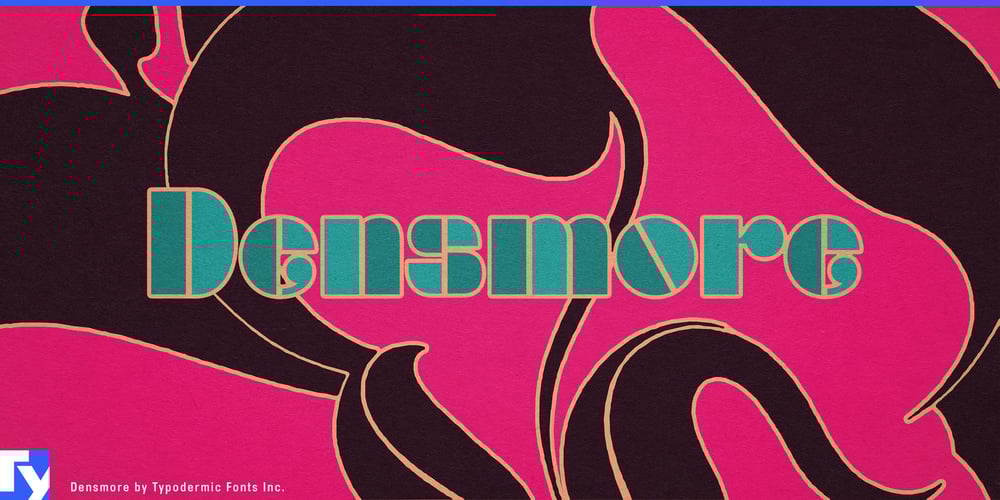
Densmore Font Family was designed by Ray Larabie and published by Typodermic. Densmore contains 3 styles and family package options. Densmore: A typographic tribute to the psychedelic spirit of The Doors. This avant-garde typeface from Typodermic Fonts doesn’t just nod to rock ‘n’ roll history—it invites you to break on through to a new dimension of design.Crafted with a harmonious blend of geometric precision and free-spirited hand-drawn flair, Densmore captures the essence of The Doors’ iconic logo while carving out its own unique identity. It’s not just a font; it’s a portal to the creative revolution of the ‘60s, reimagined for the modern designer. Densmore comes in a trio of styles—regular, blue, and pink—each ready to set your designs ablaze with creativity. Layer these styles with offset effects and color variations to create mind-bending typography that Jim Morrison himself would approve of. It’s more than type; it’s a light show for your layouts.But Densmore’s real magic lies in its details. Activate the ligatures, and watch as double lowercase “o” combinations transform into mirrored “oo” combos—a subtle nod to the altered perceptions of the psychedelic era. It’s these thoughtful touches that elevate Densmore from mere homage to a powerful tool for contemporary expression. Don’t let your designs be confined by the ordinary. Whether you’re crafting album covers, festival posters, or branding for the next countercultural revolution, Densmore speaks volumes in any language. Its extensive character set supports a vast array of Latin-based European writing systems, ensuring your message resonates from the Whisky a Go Go to the clubs of Berlin.Densmore is an invitation to explore the boundaries of design, to challenge conventions, and to create work that stands out in a world of conformity. It’s for the graphic designer who dares to be strange, who seeks to break on through to the other side of creativity. So, are you ready to light a fire of inspiration? Get Densmore today and let your designs ride the creative storm